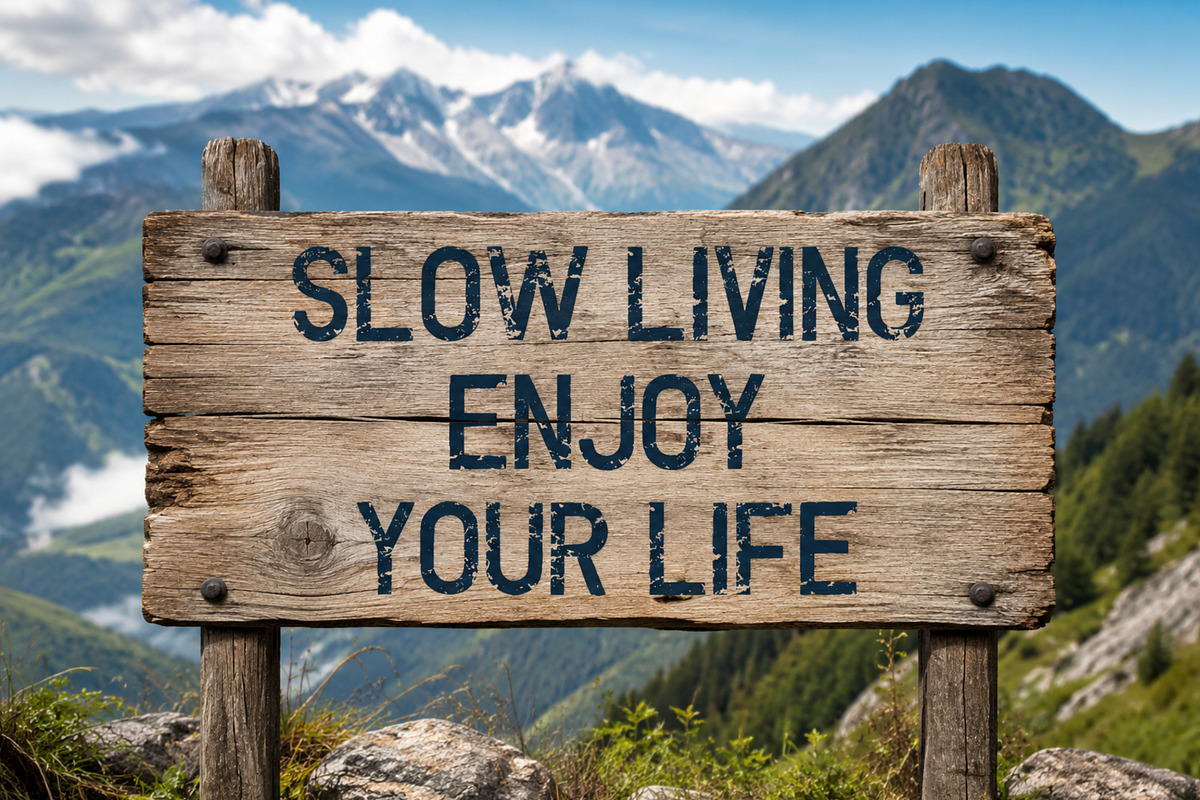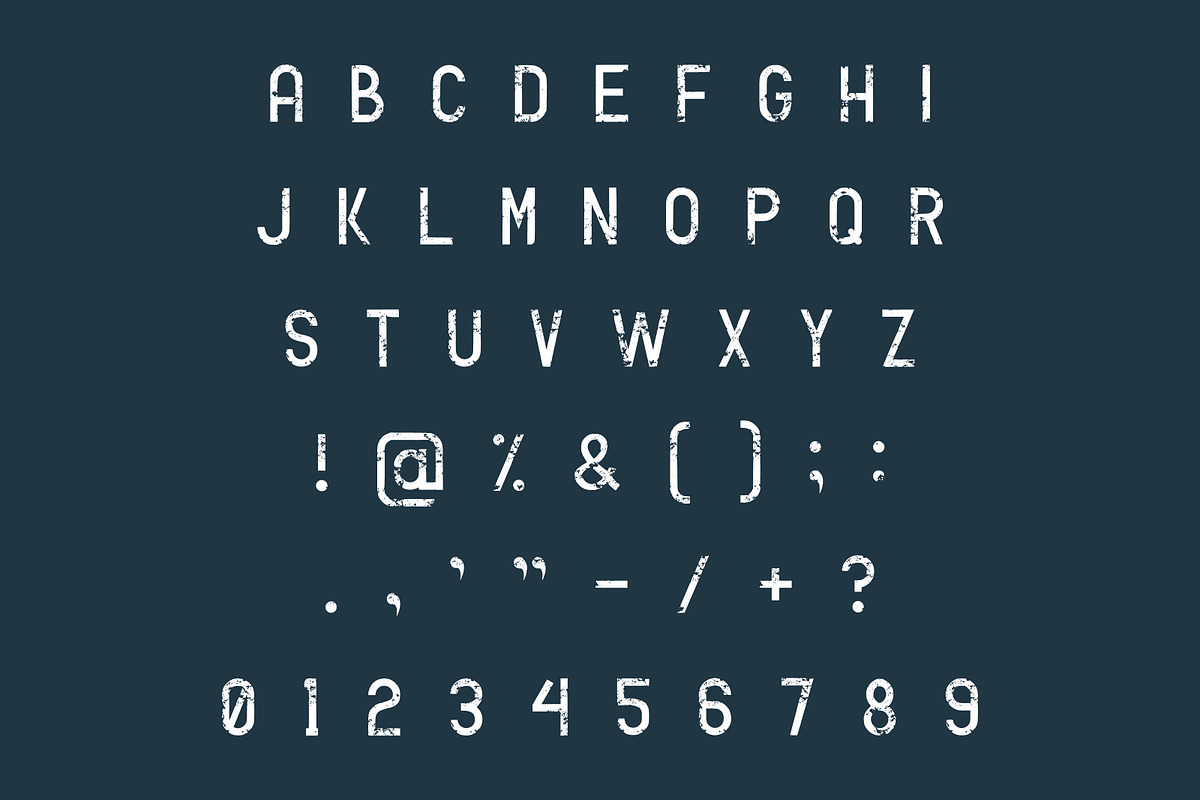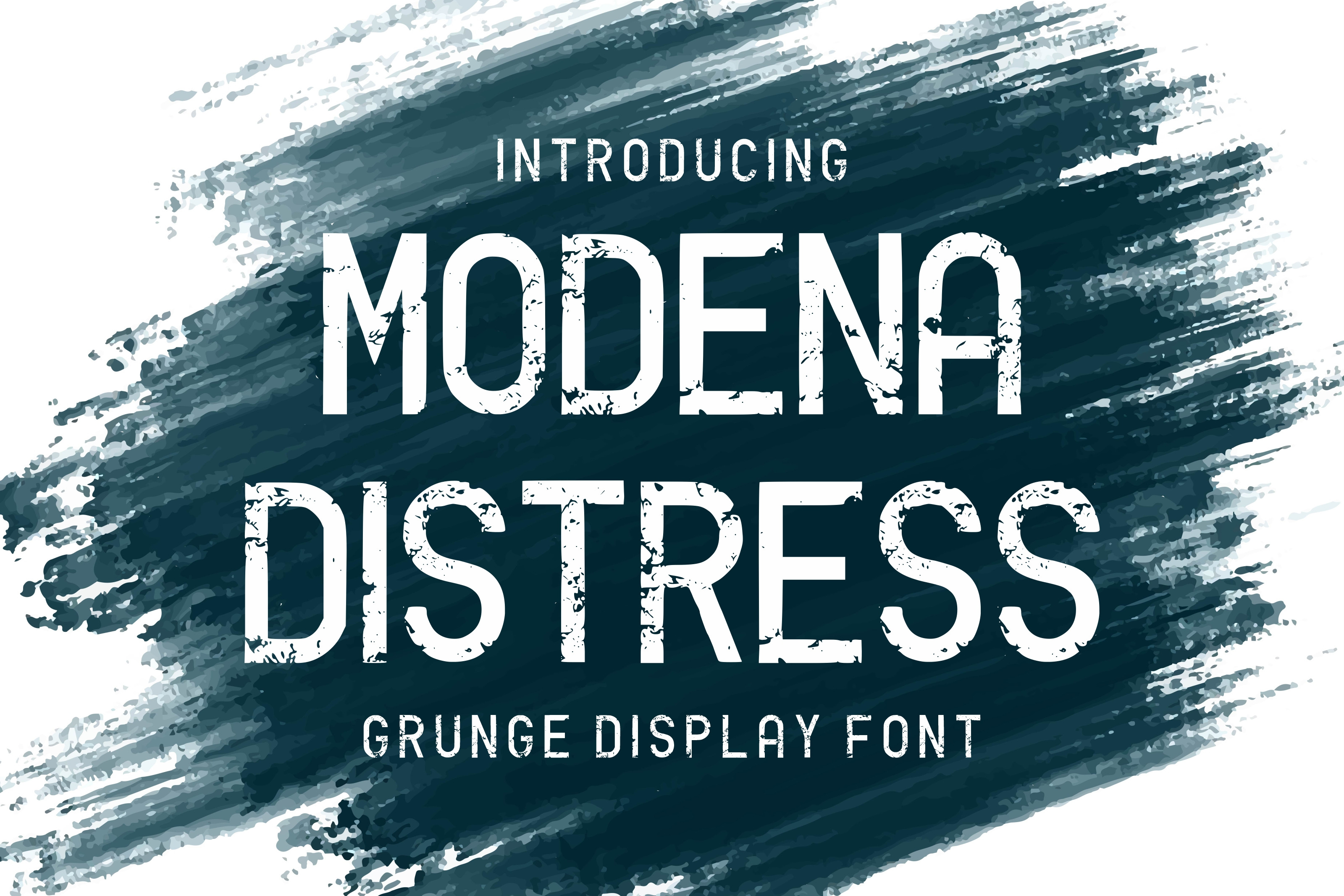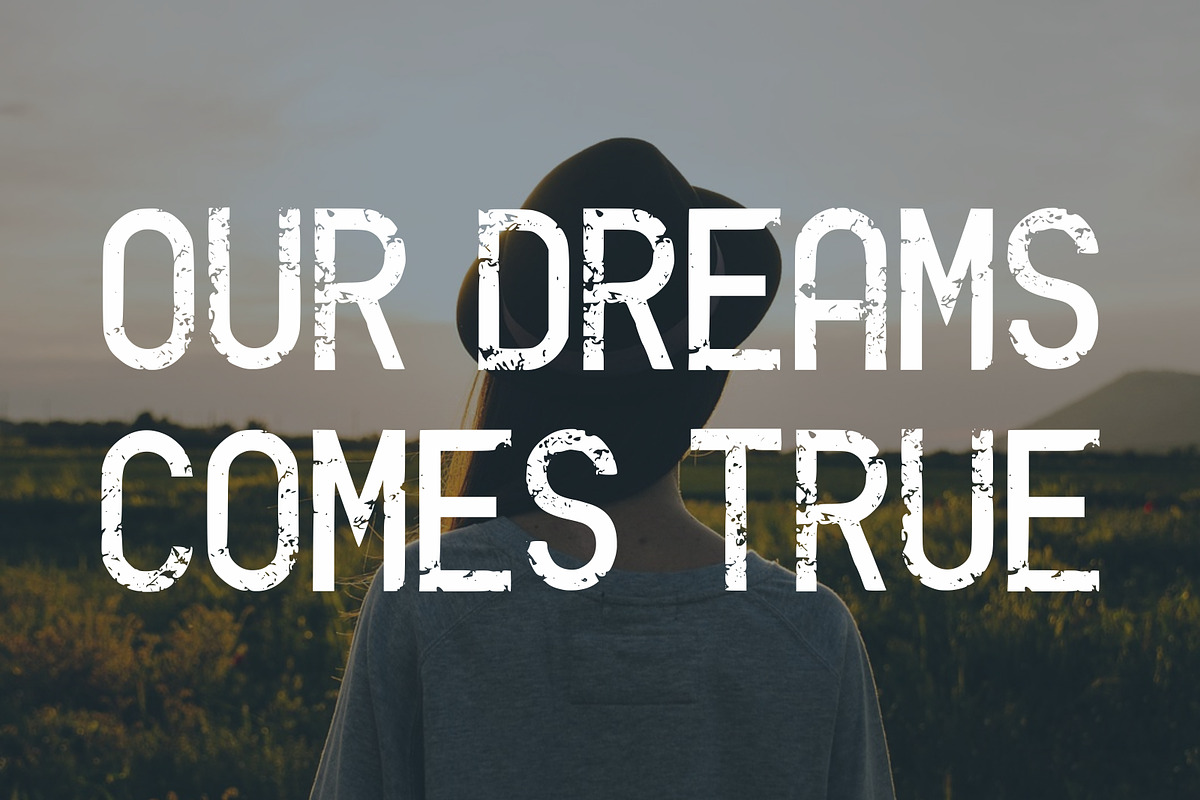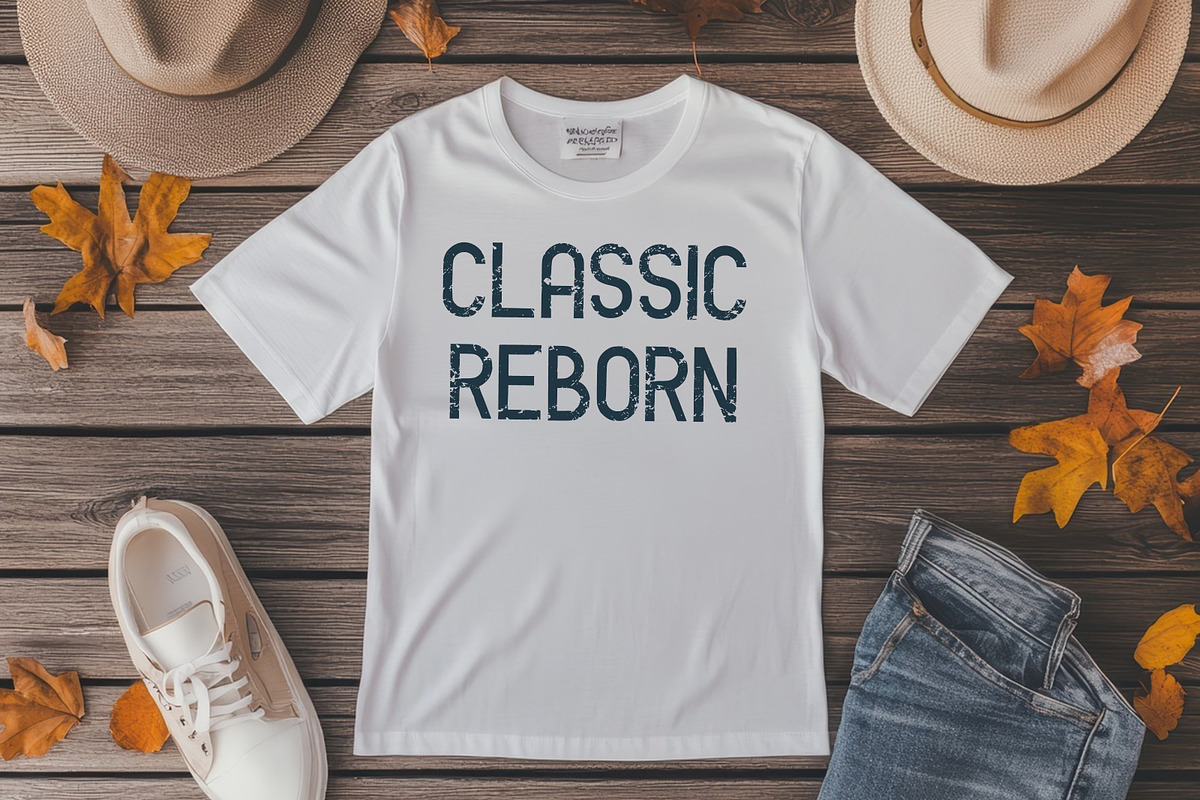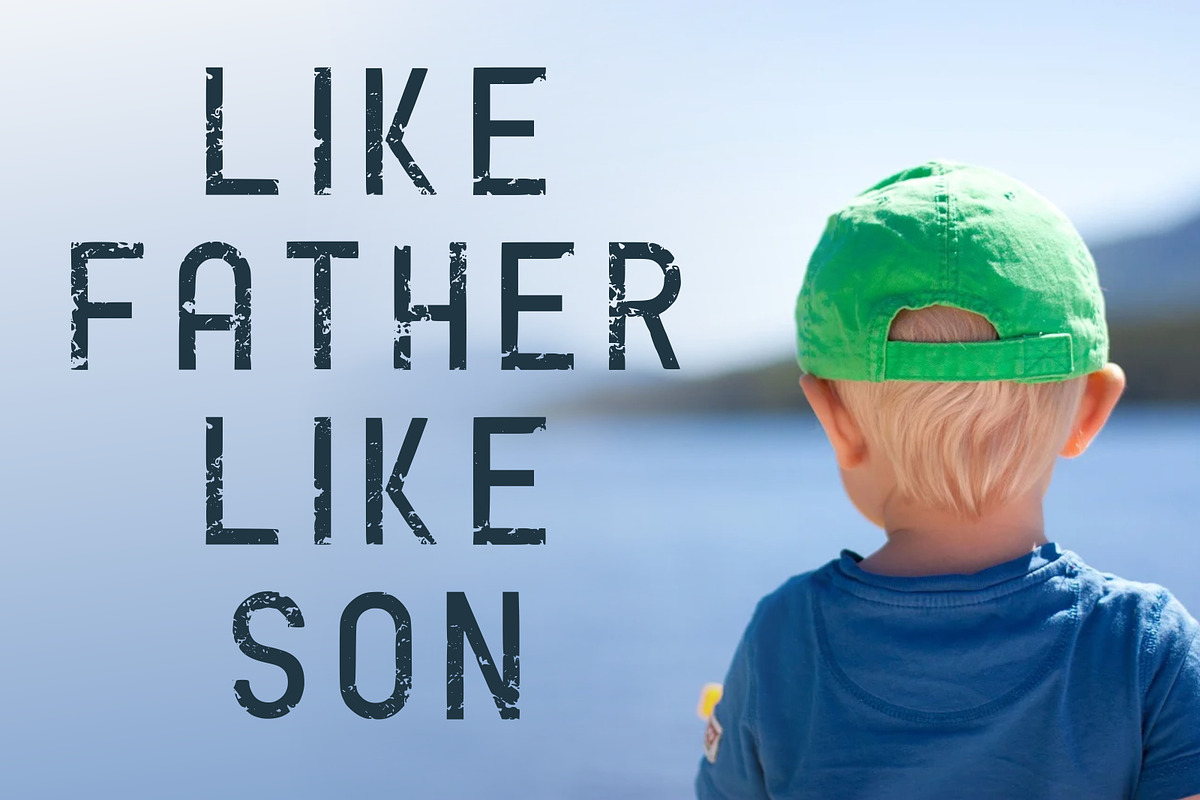
Modena Distress | Grunge Font
Modena Distress is a powerful grunge display font designed to bring raw energy and authentic texture to your typography. Featuring carefully crafted distressed details, this font creates a weathered print effect that instantly adds depth and character to your designs.
Whether you're designing vintage posters, streetwear graphics, product packaging, branding materials, sports promotions, album covers, or social media content, Modena Distress provides a bold and memorable visual presence.
Its strong letterforms and distressed finish make it ideal for projects that require an industrial, urban, rustic, or retro aesthetic.
Uppercase Letters
Ideal For
Vintage Branding
Posters & Flyers
T-Shirt Graphics
Album Covers
Sports Designs
Outdoor & Adventure Themes
Industrial Projects